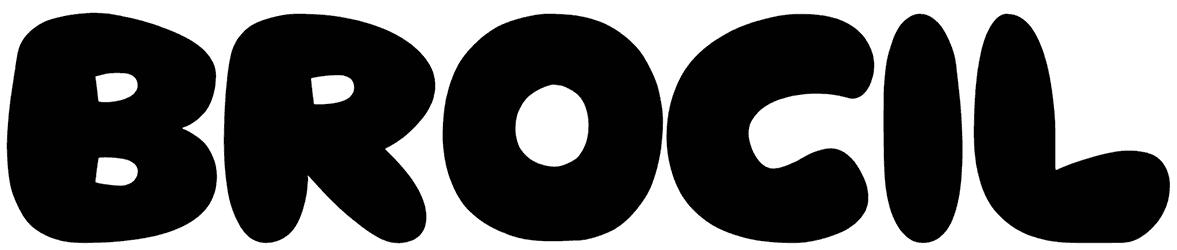
Kontana Font
If you like to trim your design with a modern, humble, and special vibe, this would be a good suggestion for you. As a rounded font, Kontana shows soft and bold lettering that can be matched with any item. There is no support for lowercase letters, but still, it can throw a catchy mood into your creative designs, from titles to packaging.
Font By Titik Creative
Designed by: Hamsah